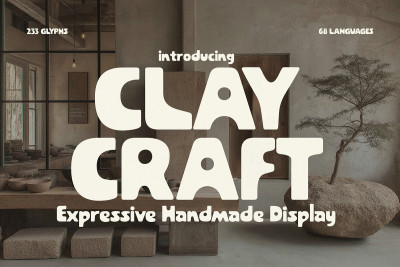
Claycraft - Bold Organic Display Font
Claycraft - Bold Organic Display offers a fresh typographic approach that balances visual appeal with exceptional legibility.